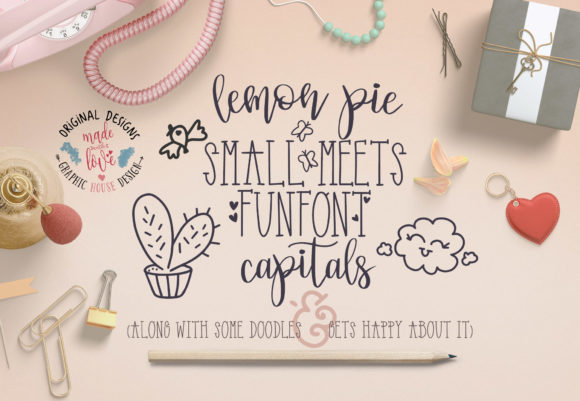
Introducing the Lemon Pie Funfont Duo Font, the perfect fusion of modern handlettered script and playful characters, designed to bring your creative projects to life!
With the Lemon Pie Small, experience a script that exudes femininity and charm. Its tall R and T add a distinctive touch, making it ideal for adding a playful and cheerful vibe to your designs.
The Funfont complements the Lemon Pie Small beautifully, providing a set of capital letters and numbers that blend seamlessly. This dynamic duo allows you to create cohesive and visually appealing designs that will leave a lasting impression.
As a special bonus, we've included a collection of fun doodles that perfectly match the font's playful personality. Unleash your creativity and add an extra layer of charm to your projects with these delightful doodles.
Whether you're designing wedding invitations, creating social media graphics, or crafting eye-catching logos, the Lemon Pie Funfont Duo Font is the perfect choice. Its versatility makes it suitable for a wide range of projects, ensuring that your designs stand out and captivate your audience.